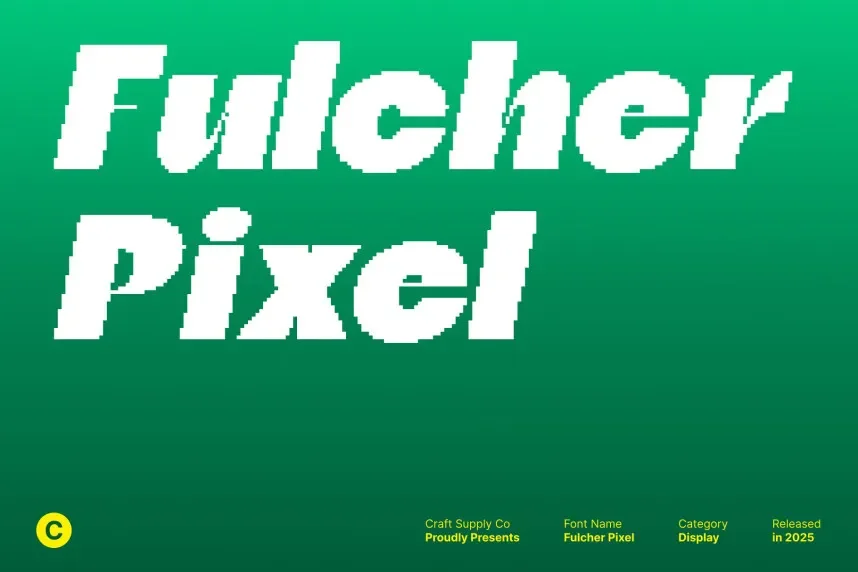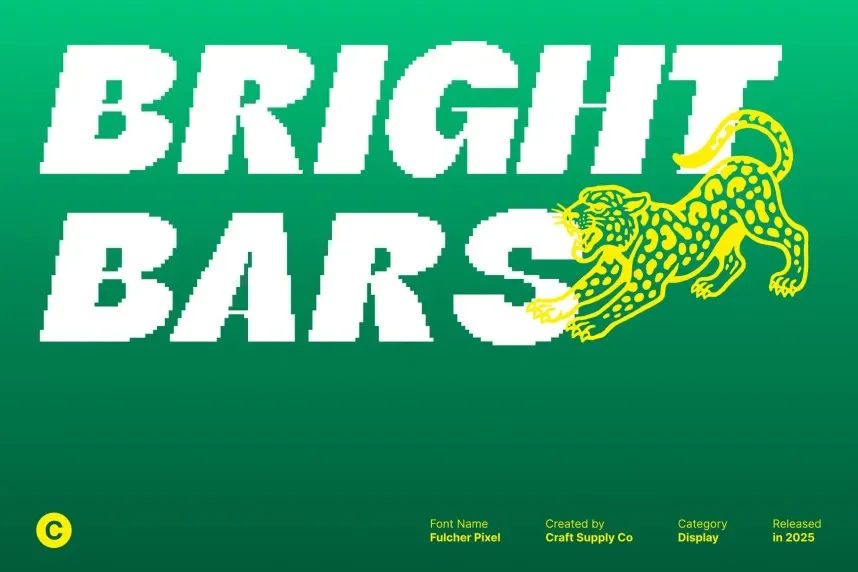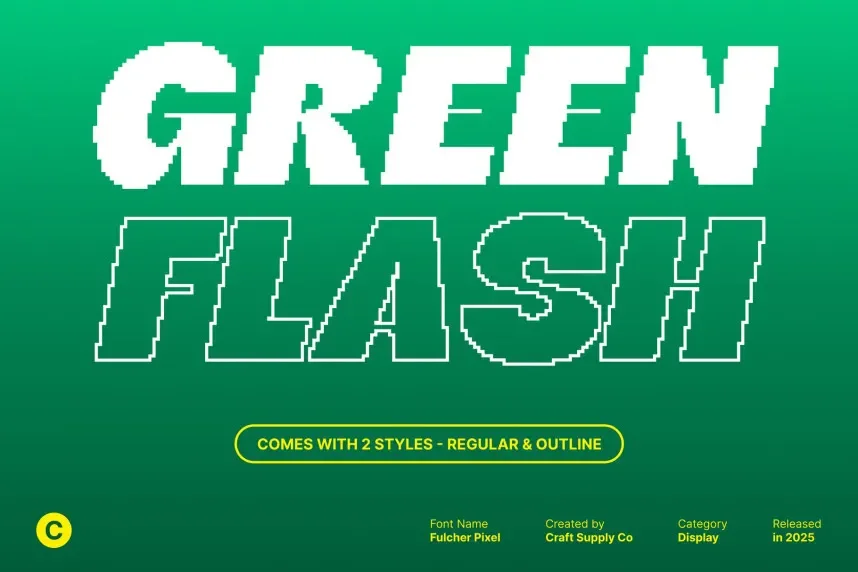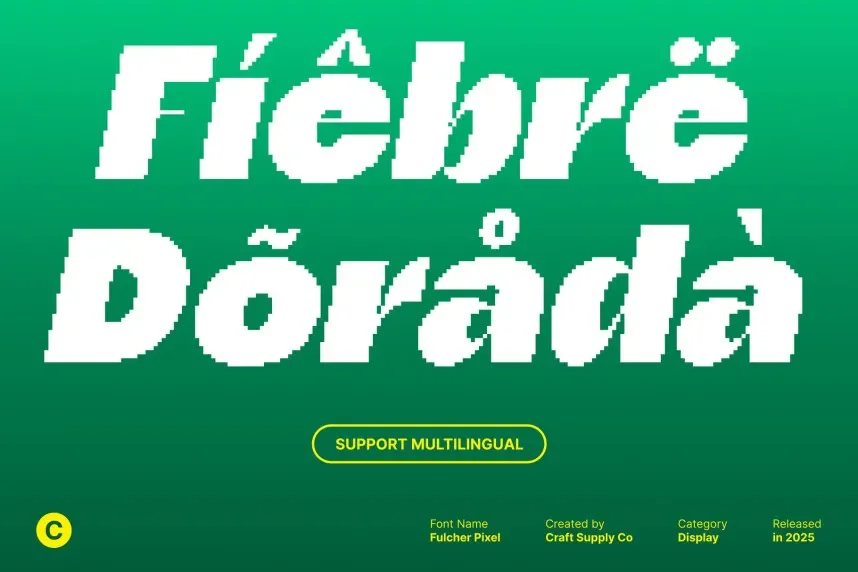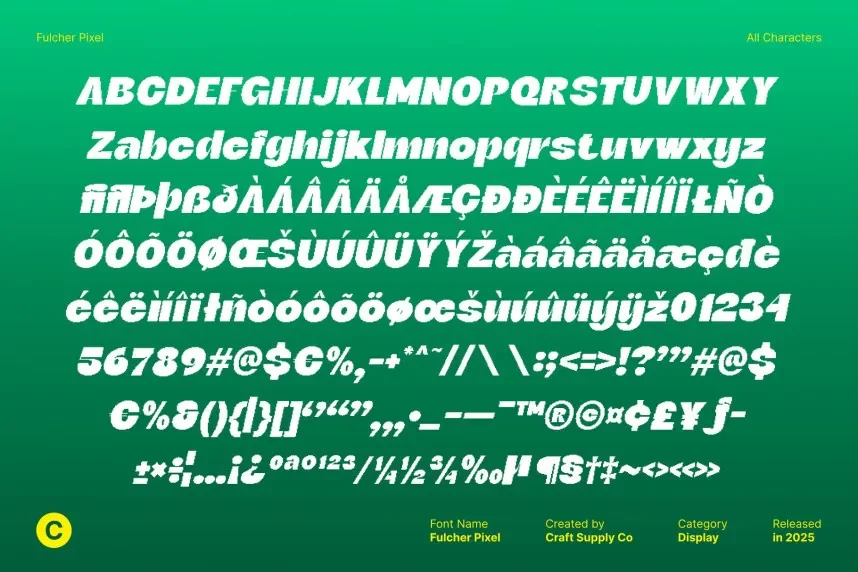
Fulcher Pixel Font is a pixelated display typeface with a modern twist. Its sharp, digital design and clear pixel structure make it ideal for projects related to technology, gaming, or digital art. Perfect for websites, apps, and tech branding.
Best used for logos, website headings, and gaming interfaces, Fulcher Pixel Font pairs well with a clean sans-serif font for body text. Available in TTF and OTF formats, it includes a commercial-use license. Always check the licensing for commercial use.